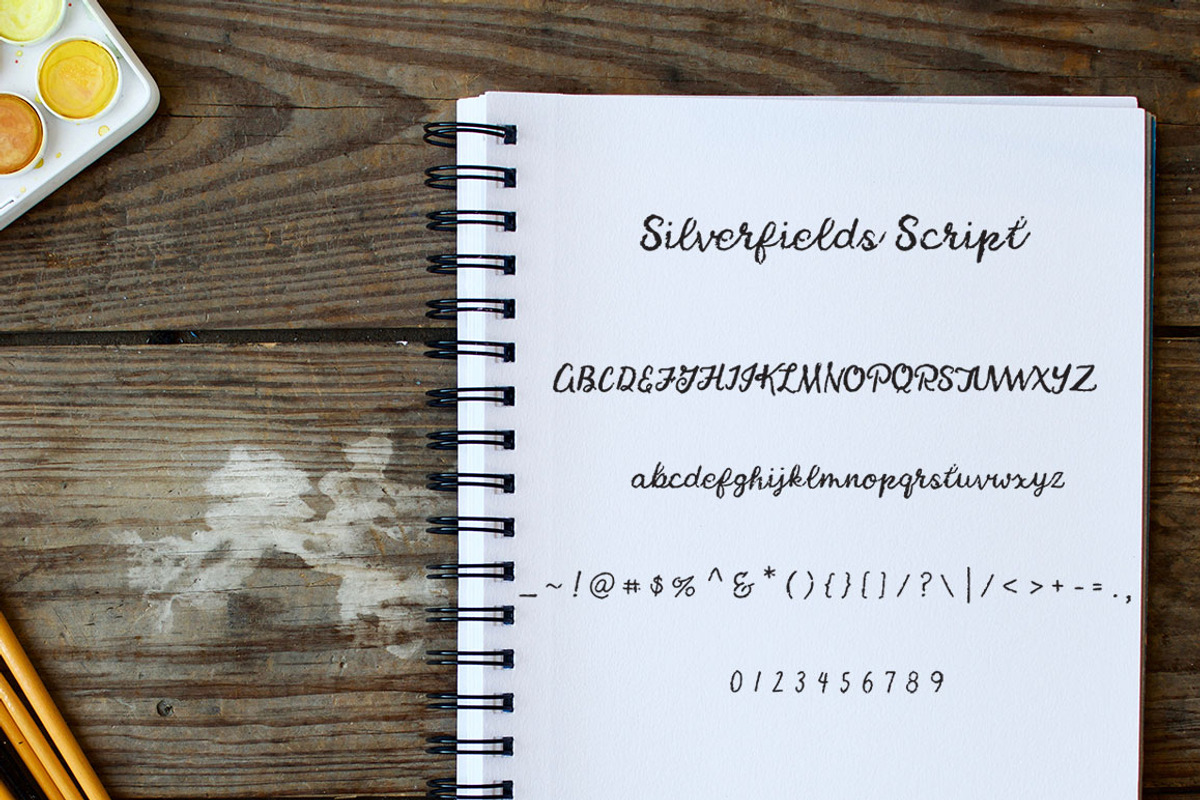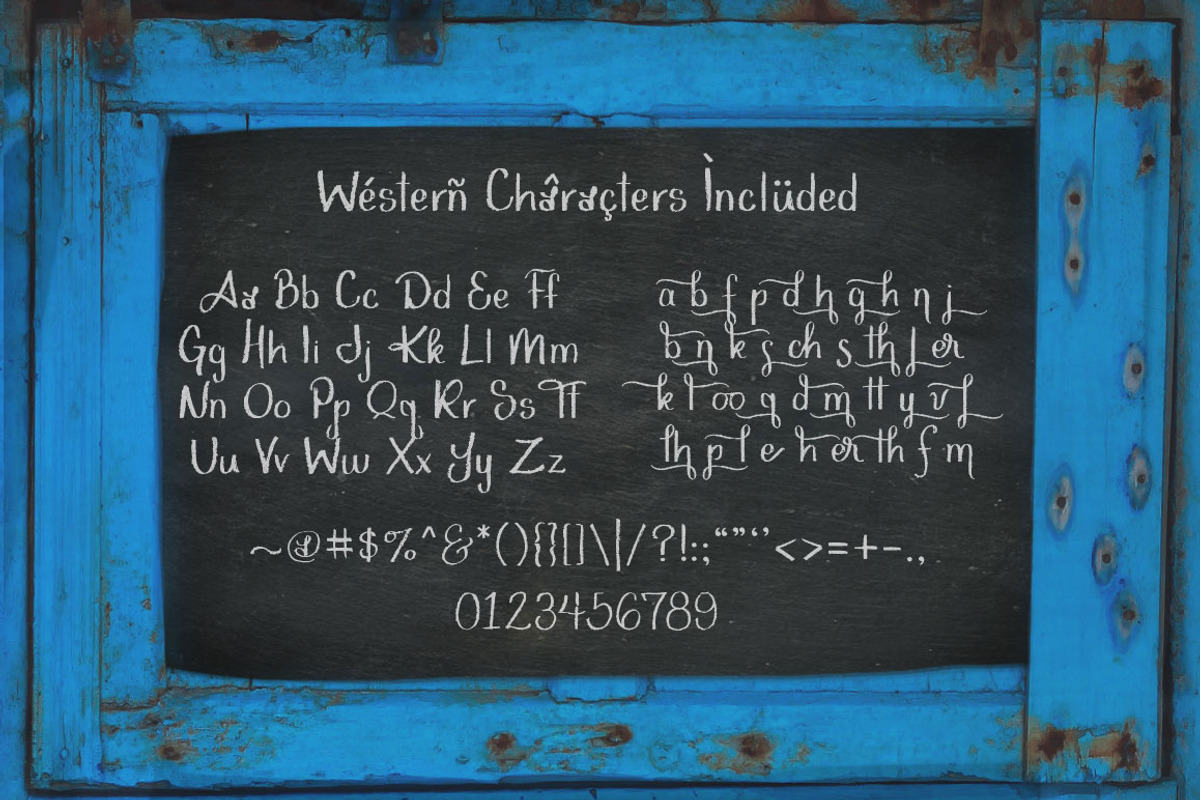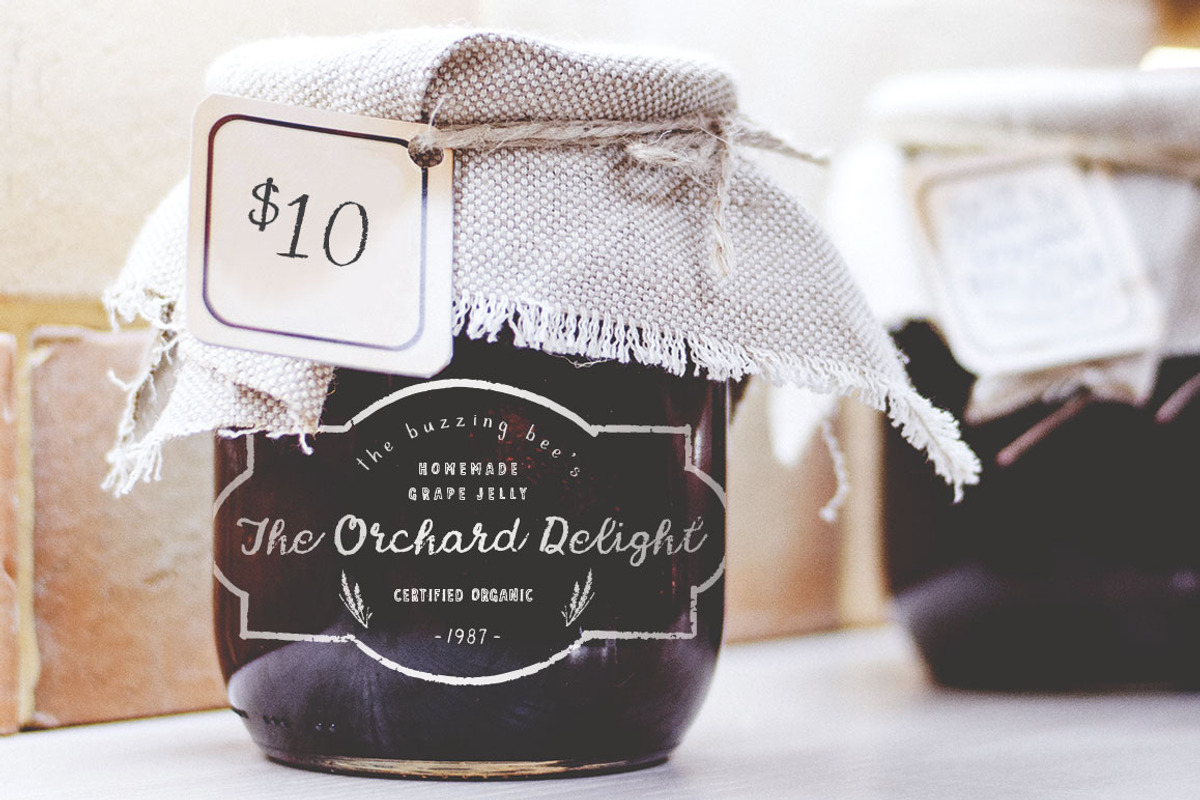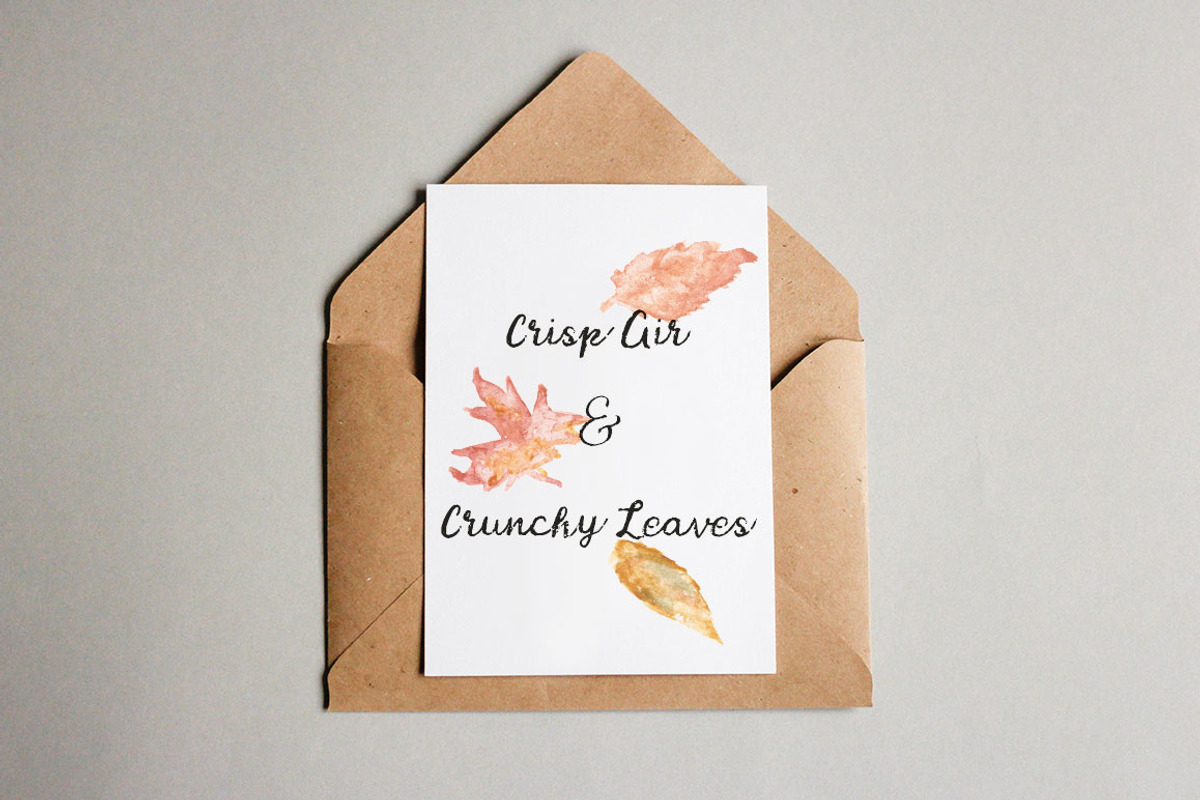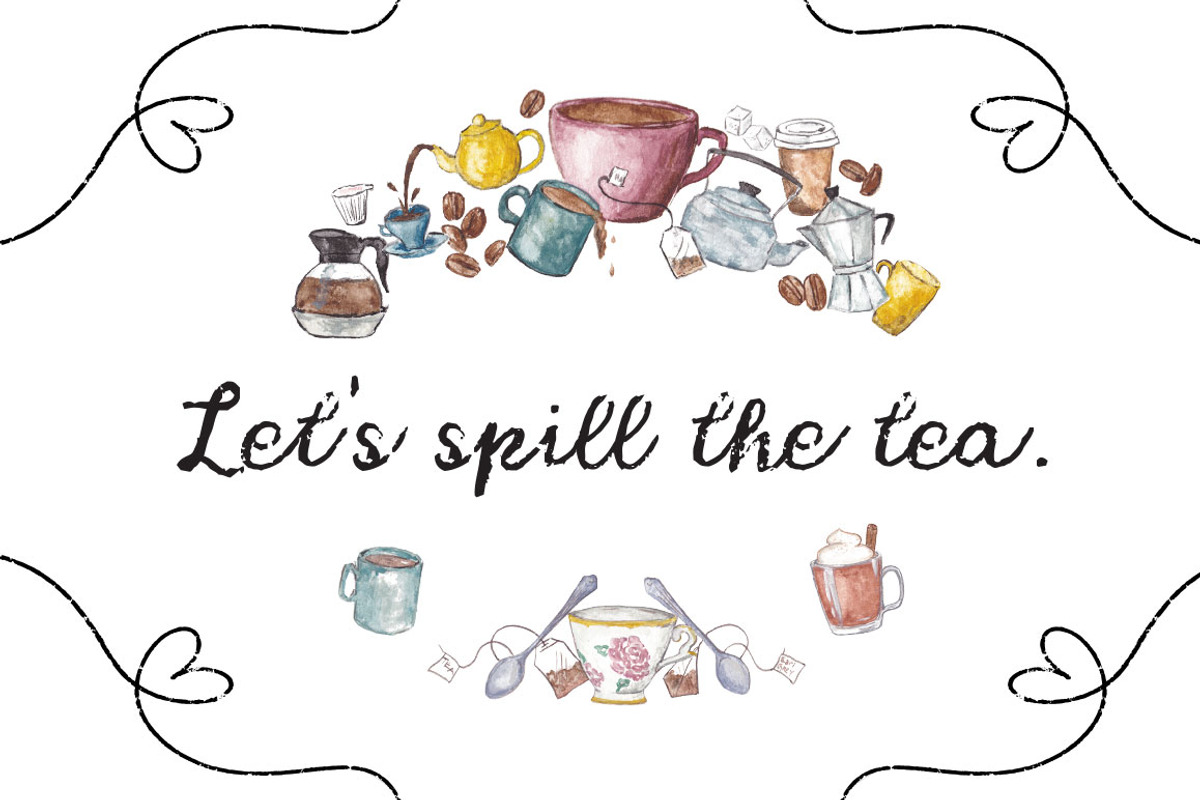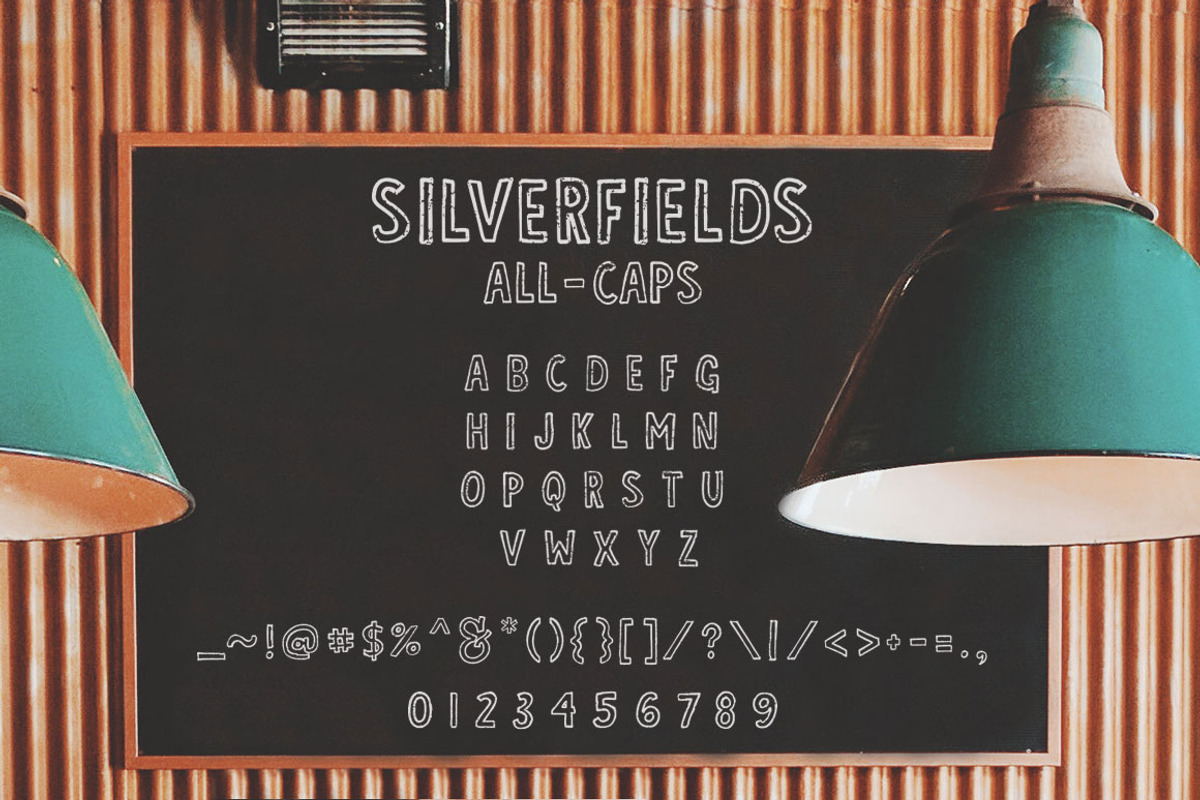
Silverfields - Font Trio + More
Silverfields - Font Trio + More by Rawberry Strubarb Ink. is a font selected for branding, posters, packaging, typography.
- Each font has its regular & Italic styles.
- These images are a great way to welcome Autumn back!
- They are transparent, capturing the watercolor texture beautifully.
- It has great alternative letters to add a more flowy look, eye catching ligatures, and this font has all the western characters included!
Silverfields - Font Trio + More by Rawberry Strubarb Ink. fits naturally into Branding, posters, packaging, typography.